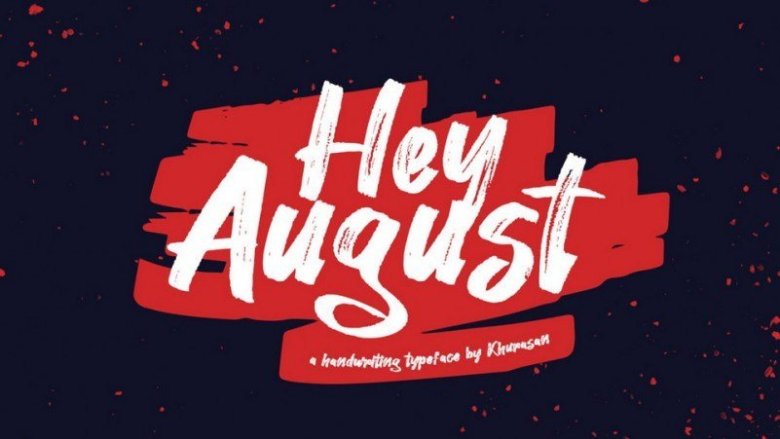
Hey August Free Font
Introducing Hey August – Handbrush Font. Hey August Font combines attractive curves with a fresh urban edge; delivering a stylish script which is guaranteed to add an eye-catching appeal to your logo designs, brand imagery, handwritten quotes, product packaging, merchandise & social media posts.